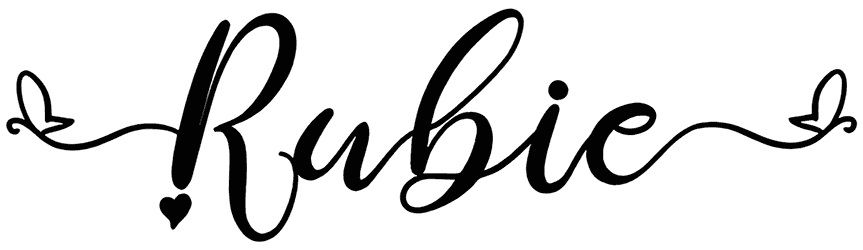
Rubie Font
Rubie is a calligraphy font with a fantastic, feminine style, and it will help your hand-lettering, branding, posters, and Valentine’s Day designs stand out from the crowd. All your most exciting creative initiatives will be guaranteed success with the help of this romantic font‘s romantic feel.